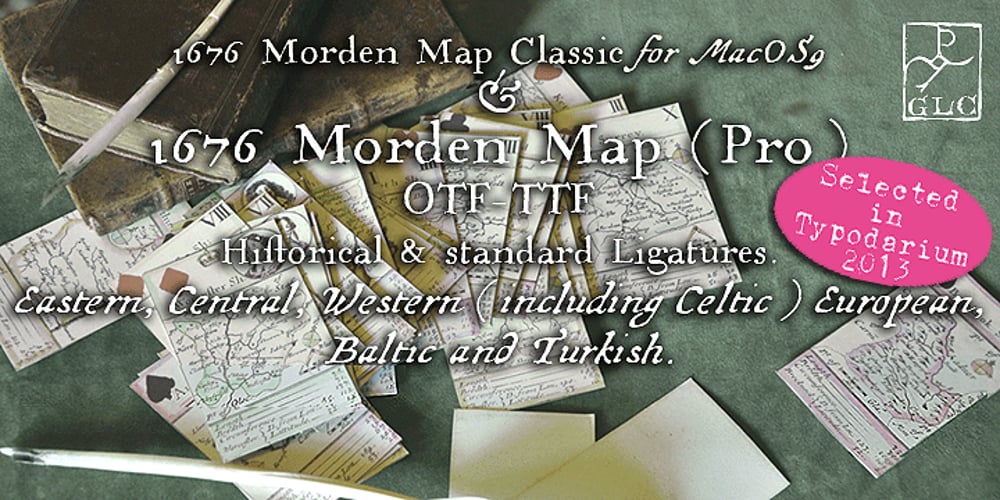
1676 Morden Map Font Family was designed by published by GLC. 1676 Morden Map contains 2 styles and family package options. This family was created — inspired from the engraved typeface (Two styles : Normal & Italic) used in the pack of 52 playing cards who was describing the 52 counties forming a small Atlas of England and Wales and depicting English roads for the first time, published by Sir Robert Morden in 1676. Our OTF and TTF versions are covering Western, Eastern and Central European languages (including Celtic), Baltic and Turkish, containing historical and standard ligatures plus specific Old English abbreviations. The MacTT Classic version is containing the basic standard 256 glyphs including some extra ligatures.